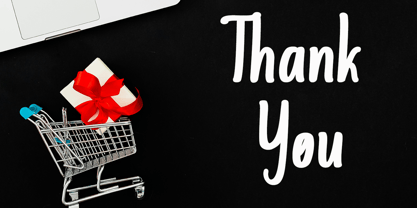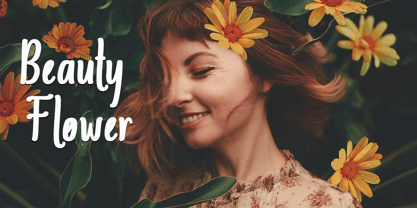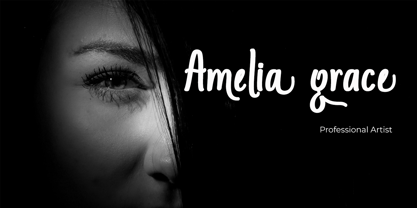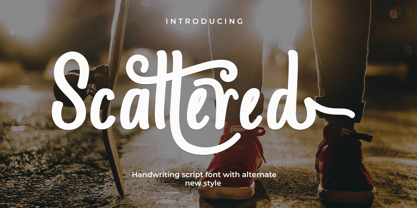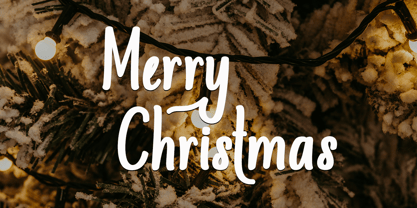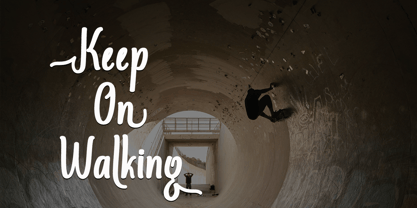
Scattered
by Cocodesign
The Scattered Font Family was designed by Muhammad Zaini and published by Cocodesign. Scattered contains 1 styles.
Scattered Modern Calligraphy. This font was designed by handwriting, and it has a modern and unique forms of calligraphy, the writing style is very natural.
The Features of this fonts is;
* Standart ligatures
* Stylistic Alternates
* Contextual Alternates
* Stylistic sets